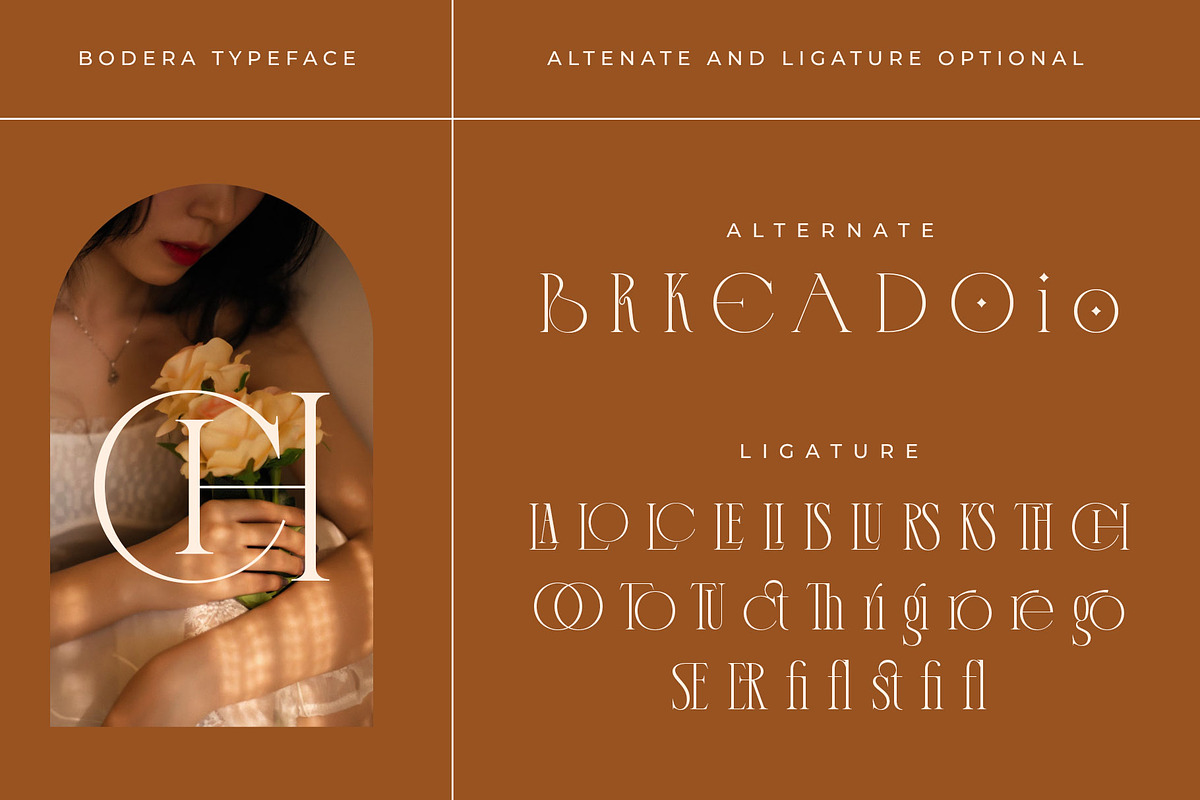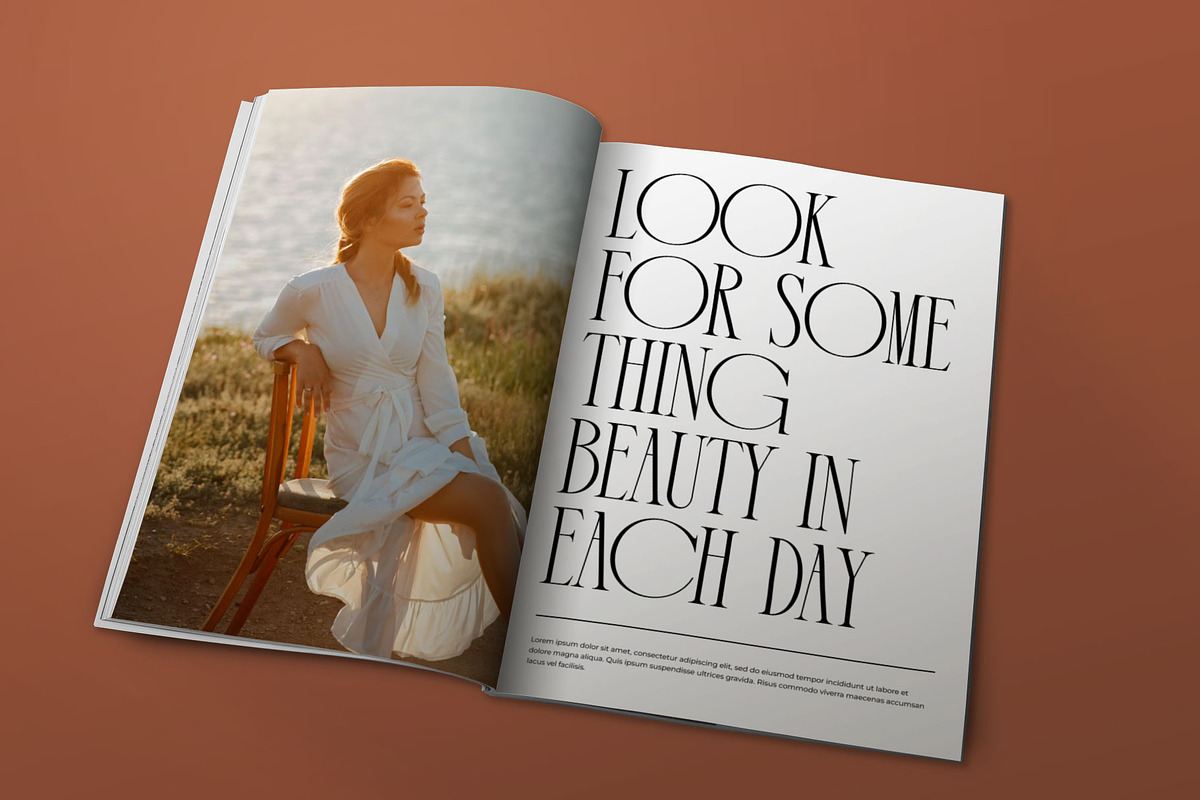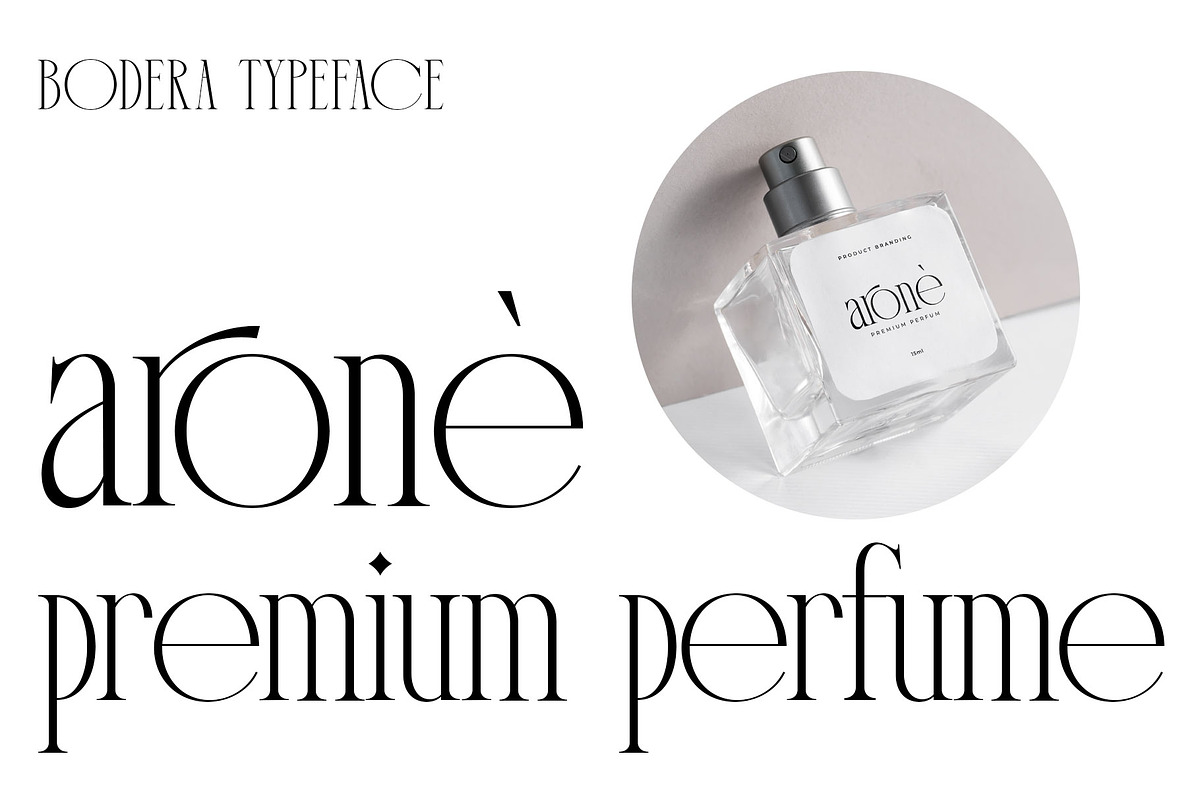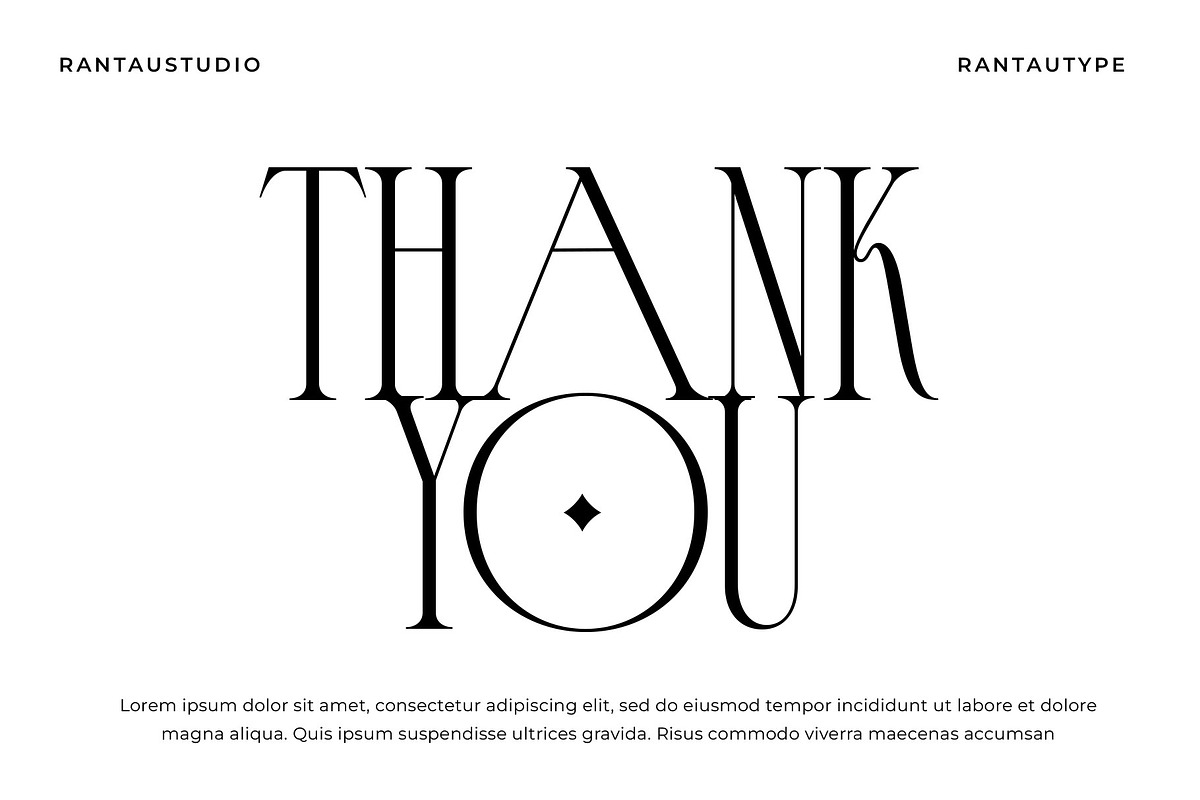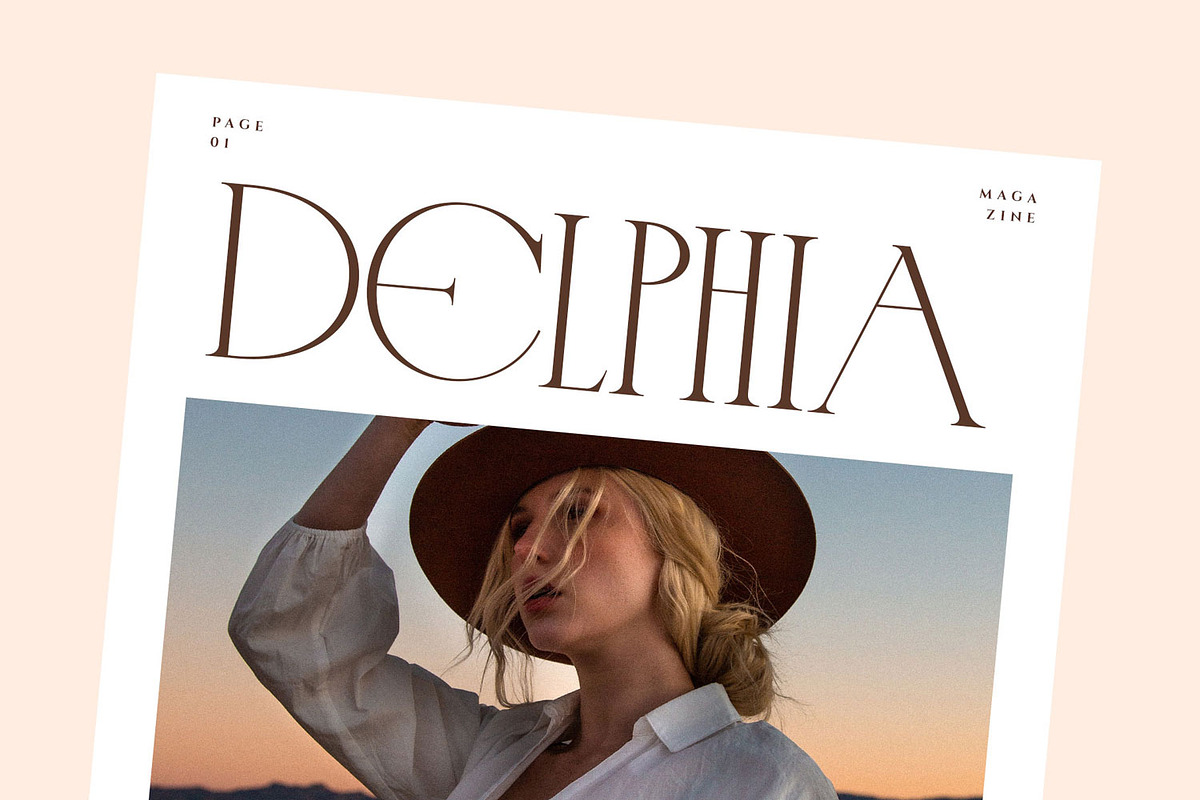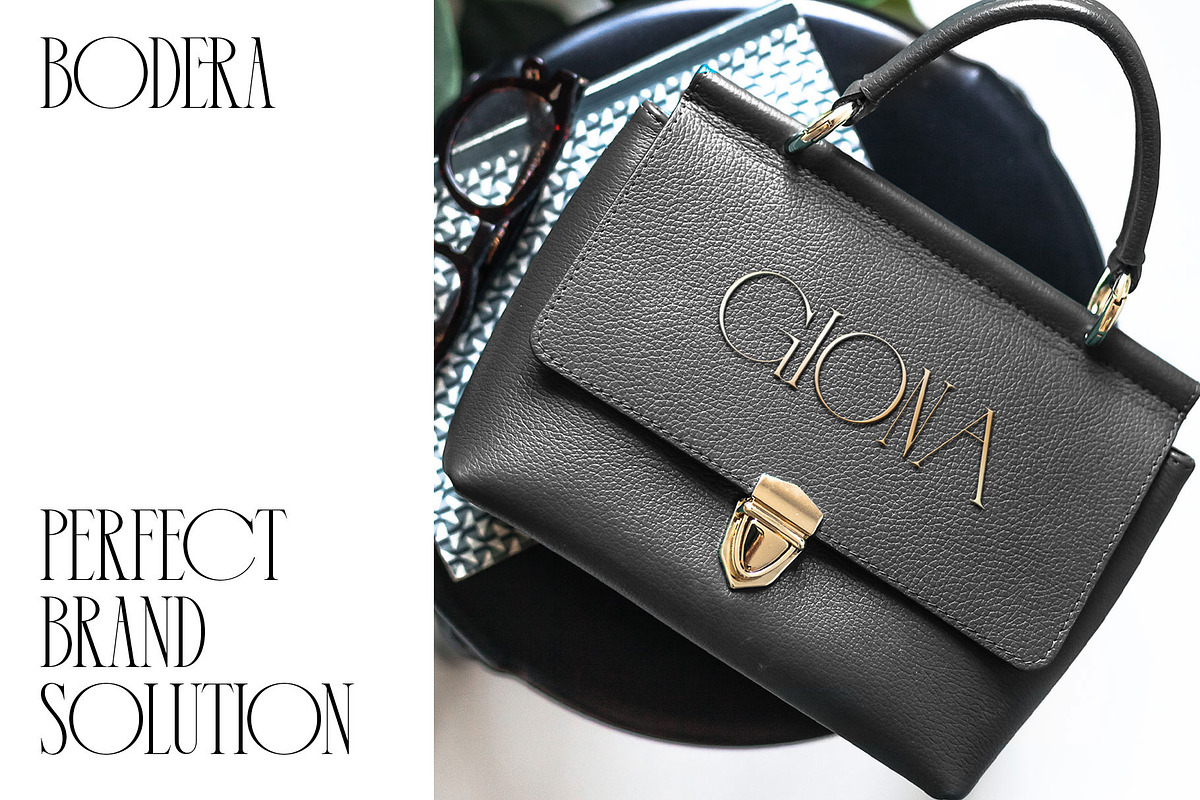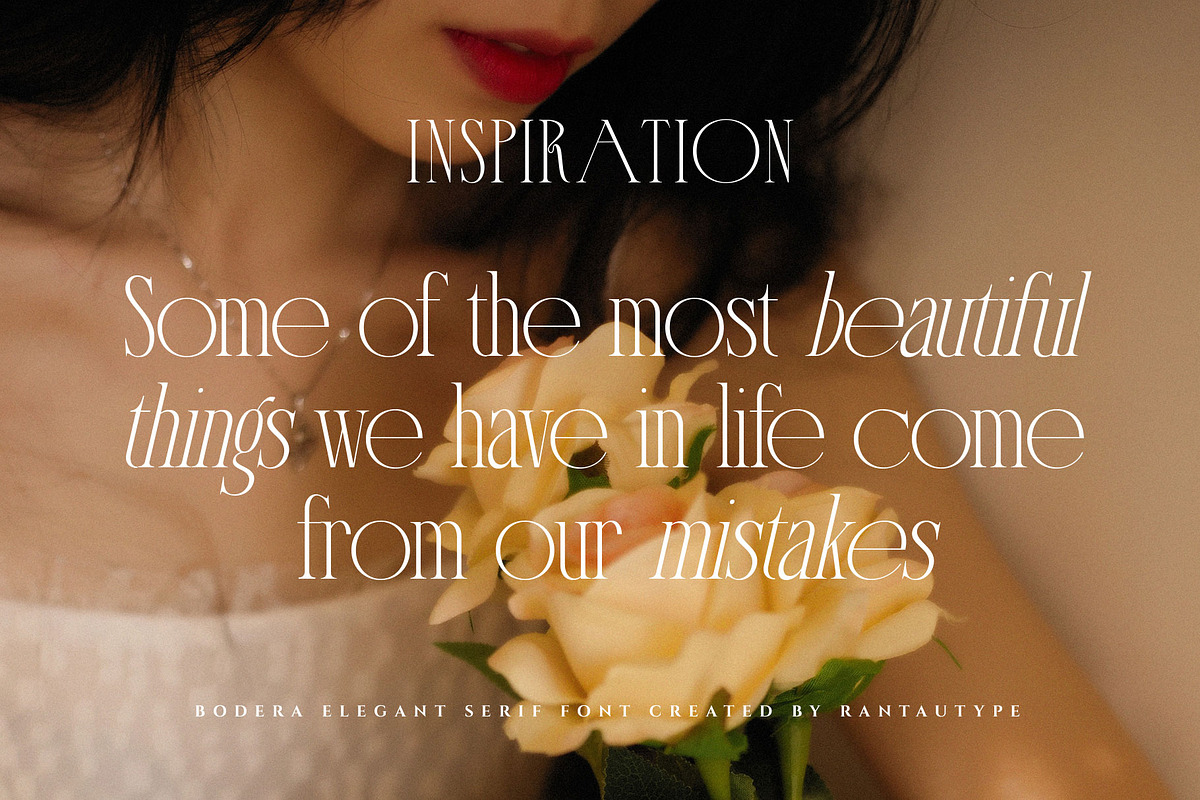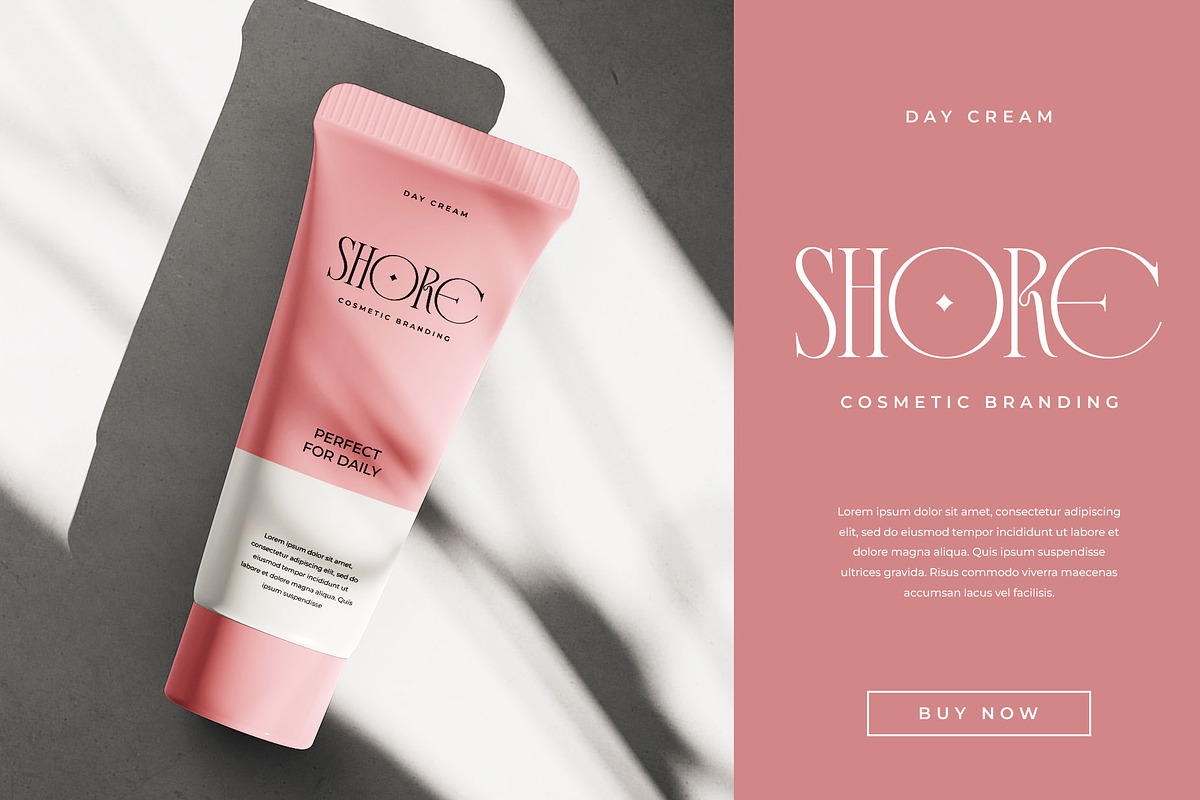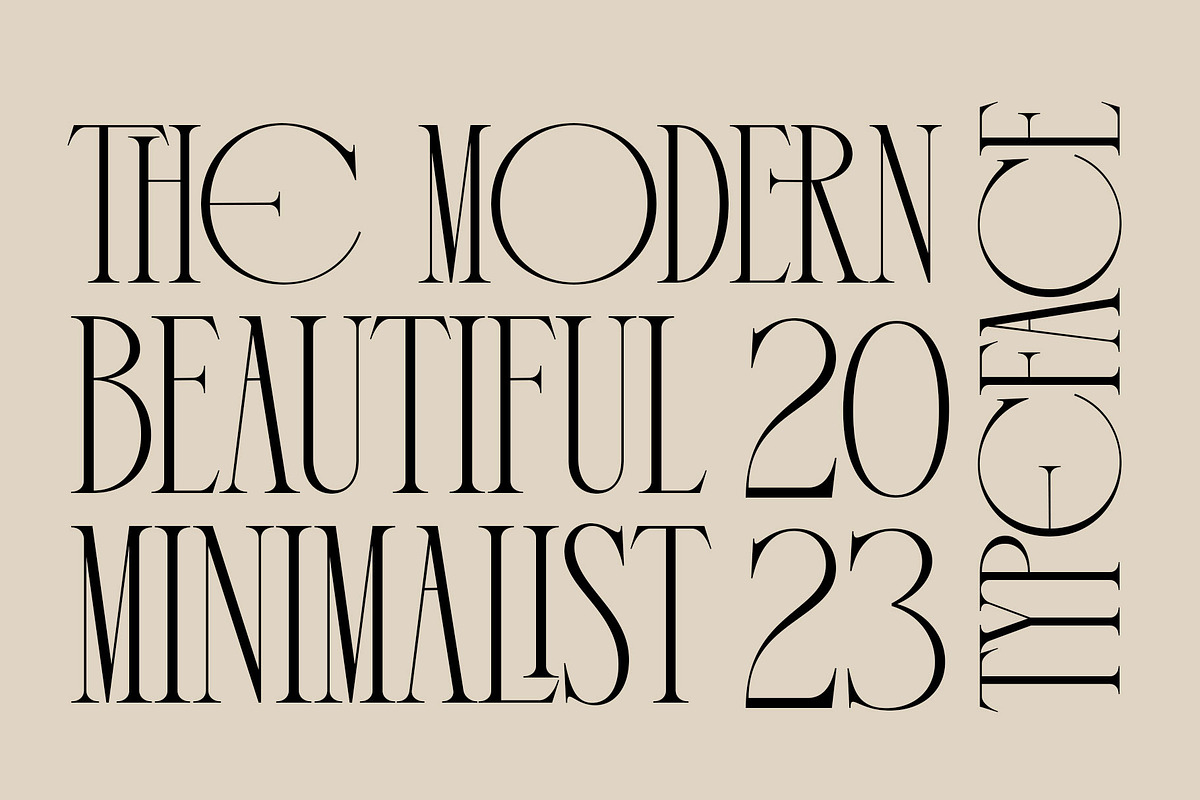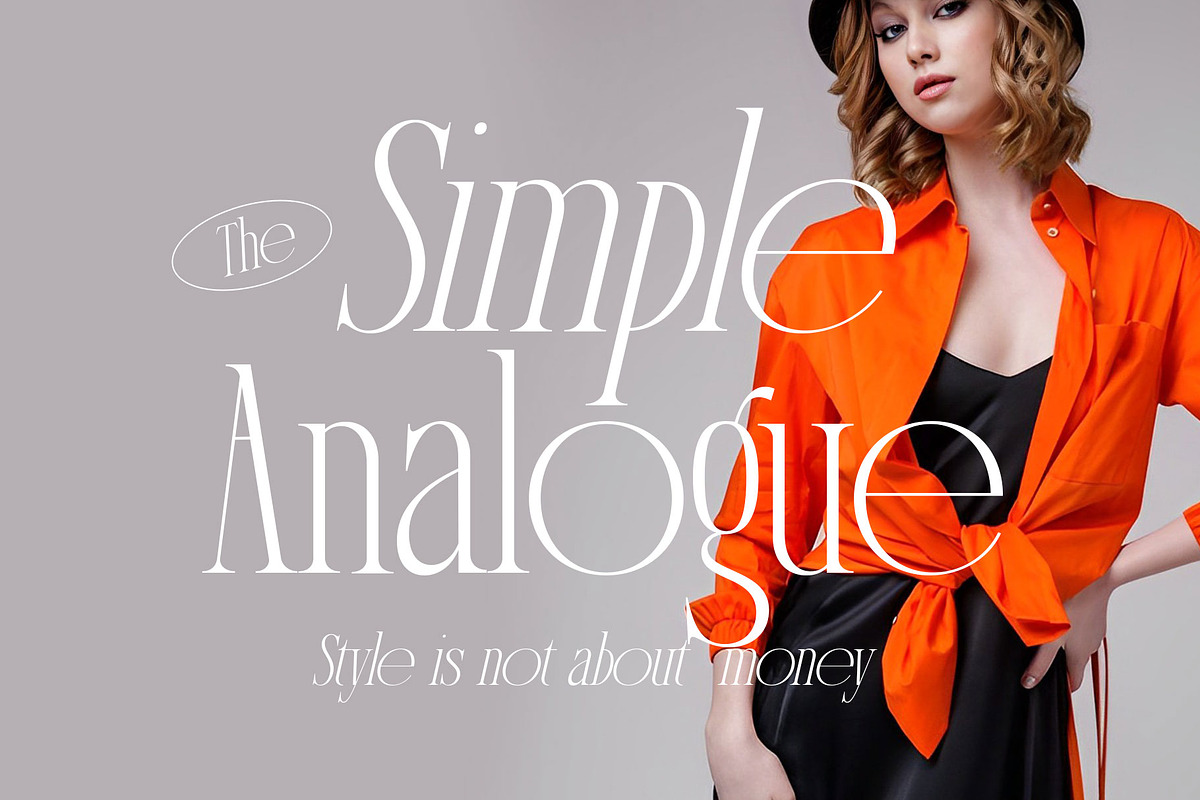
Bodera Elegant Display Serif Font
Hi Ladies and Gentleman ! Proudly present a elegant ligature serif font “Bodera”, by rantautype.
Bodera - a elegant display serif with Sophisticated shape. We love how it tall and small width make look elegant and professional. Special character for C, G, O, alternate A, alternate E, we make different more maximum width make more sophisticated. We keep this font looks fashionable, elegant, luxury, premium, modern, catchy and easy to use. Bodera come with two font ( reguler and italic ), alternate, ligature and multinggual accent support.
Bodera is beautiful choice for any creative endeavor to make perfectly suitable for creating elegant, chic, lifestyle design such as logos, title, cover, branding, display and magazine, corporate, business project, wedding project, advestising project and much more. Now you can choice Bodera to make your project stand out!
- 2 Font (reguler and italic)
- Standar character A-Z and a-z
- Alternate and ligature
- Multilinggual Accent Support
- Opentype feature